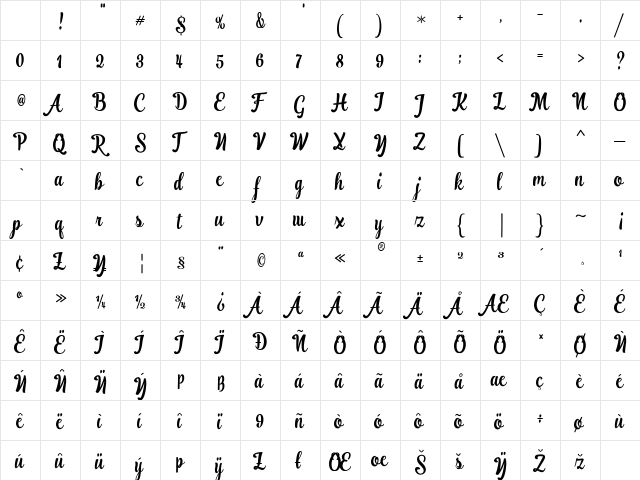
Complete Ranykinaya Script Regular glyph index. Displaying only characters natively supported by Ranykinaya Script Regular font.
Ranykinaya Script flows with the natural rhythm of handwritten lettering, making it ideal for designs that call for warmth and personal expression.
Font Pairing: Combine Ranykinaya Script with a simple geometric sans for maximum contrast - the tension between flowing curves and clean structure is a classic typographic pairing.
Pro Tip: Use Ranykinaya Script for short runs of text - names, titles, or taglines. Extended body copy in script faces tires the eye quickly.